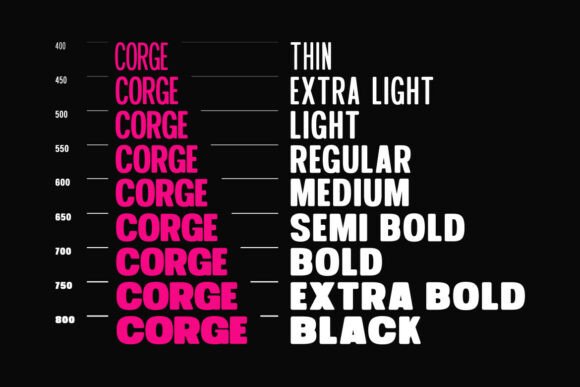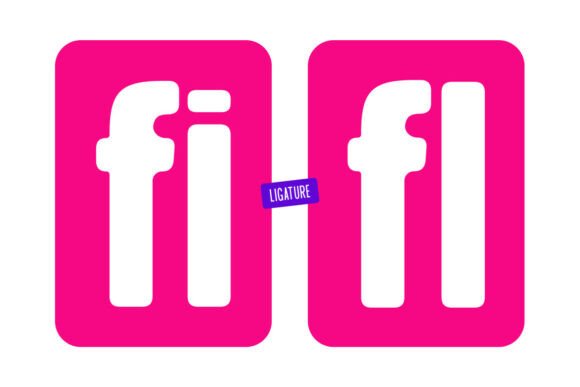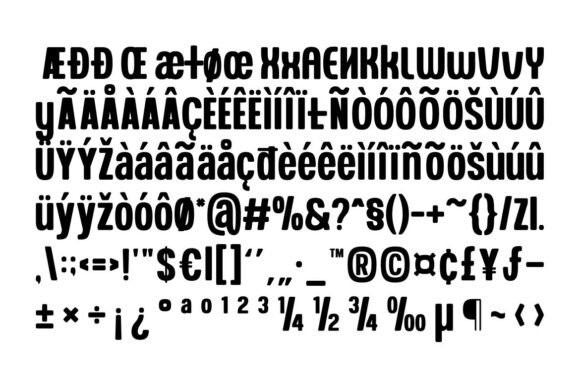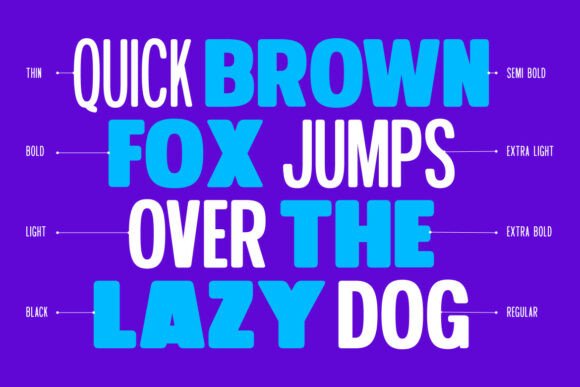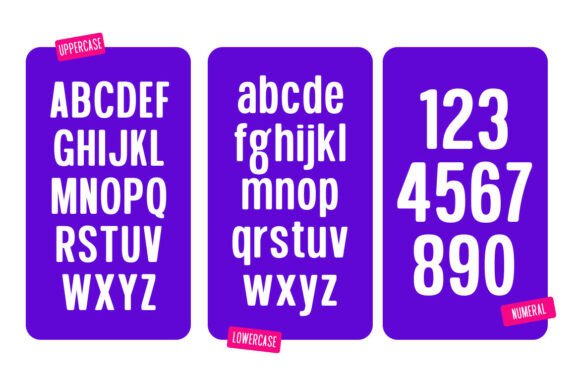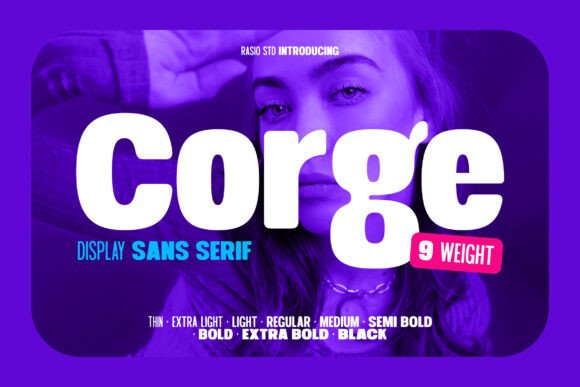
Corge Font: A Bold and Playful Display Sans-Serif for Modern Design
In the world of typography, a good font can make all the difference in a design project’s success. Corge Font is a bold and playful display sans-serif that is designed to make a powerful visual impact. With its soft rounded corners, strong geometric construction, and smooth curves, this typeface delivers clarity with personality. In this article, we’ll explore the features and benefits of Corge Font, and why it’s perfect for modern, youthful, and energetic design projects.
A Versatile Typeface with 9 Weights
One of the standout features of Corge Font is its versatility. With 9 weights ranging from Extra Light to Black, designers have a wide range of options to choose from, depending on the project’s requirements. Whether you need a font for eye-catching headlines or dynamic branding systems, Corge has got you covered. The font’s balanced proportions and friendly letterforms make it perfect for a variety of design applications, from bold branding and posters to social media graphics and advertising campaigns.
Key Features of Corge Font
- Soft Rounded Corners: Corge Font features soft rounded corners that give it a friendly and approachable feel.
- Strong Geometric Construction: The font’s strong geometric construction provides a sense of stability and structure.
- Smooth Curves: Corge Font’s smooth curves add a touch of elegance and sophistication.
- 9 Versatile Weights: The font comes in 9 weights, ranging from Extra Light to Black, offering flexibility for a wide range of design projects.
- Balanced Proportions: Corge Font’s balanced proportions ensure that it looks great in a variety of contexts, from headlines to body copy.
Ideal for Modern Design Projects
Corge Font is perfect for modern design projects that require a bold and playful touch. Its youthful and energetic vibe makes it ideal for designs that need to appeal to a younger audience. Some of the design projects that Corge Font is well-suited for include:
- Bold Branding: Corge Font is perfect for creating bold and eye-catching brand identities.
- Posters: The font’s large size and clear readability make it ideal for posters and other large-format designs.
- Social Media Graphics: Corge Font’s playful and energetic vibe makes it perfect for social media graphics and other online content.
- Advertising Campaigns: The font’s bold and attention-grabbing style makes it ideal for advertising campaigns.
- Packaging Design: Corge Font’s clear readability and bold style make it perfect for packaging design.
- YouTube Thumbnails: The font’s large size and clear readability make it ideal for YouTube thumbnails and other video content.
- Tech Startups: Corge Font’s modern and youthful vibe makes it perfect for tech startups and other innovative companies.
- Streetwear Brands: The font’s bold and playful style makes it ideal for streetwear brands and other fashion labels.
- Modern Digital Content: Corge Font is perfect for creating modern and engaging digital content, from blog posts to e-books.
Creating a Strong Visual Hierarchy
One of the benefits of Corge Font’s wide weight range is that it allows designers to create a strong visual hierarchy while maintaining a consistent and energetic brand identity. By using different weights and styles, designers can create a clear and engaging visual hierarchy that draws the viewer’s attention to the most important elements of the design.
| Author | product.rasiostudio |
In conclusion, Corge Font is a bold and playful display sans-serif that is perfect for modern, youthful, and energetic design projects. With its soft rounded corners, strong geometric construction, and smooth curves, this typeface delivers clarity with personality. Its 9 versatile weights and balanced proportions make it ideal for a wide range of design applications, from bold branding and posters to social media graphics and advertising campaigns. Whether you’re a designer or a crafter, Corge Font is a great choice for any project that requires a bold and attention-grabbing font.